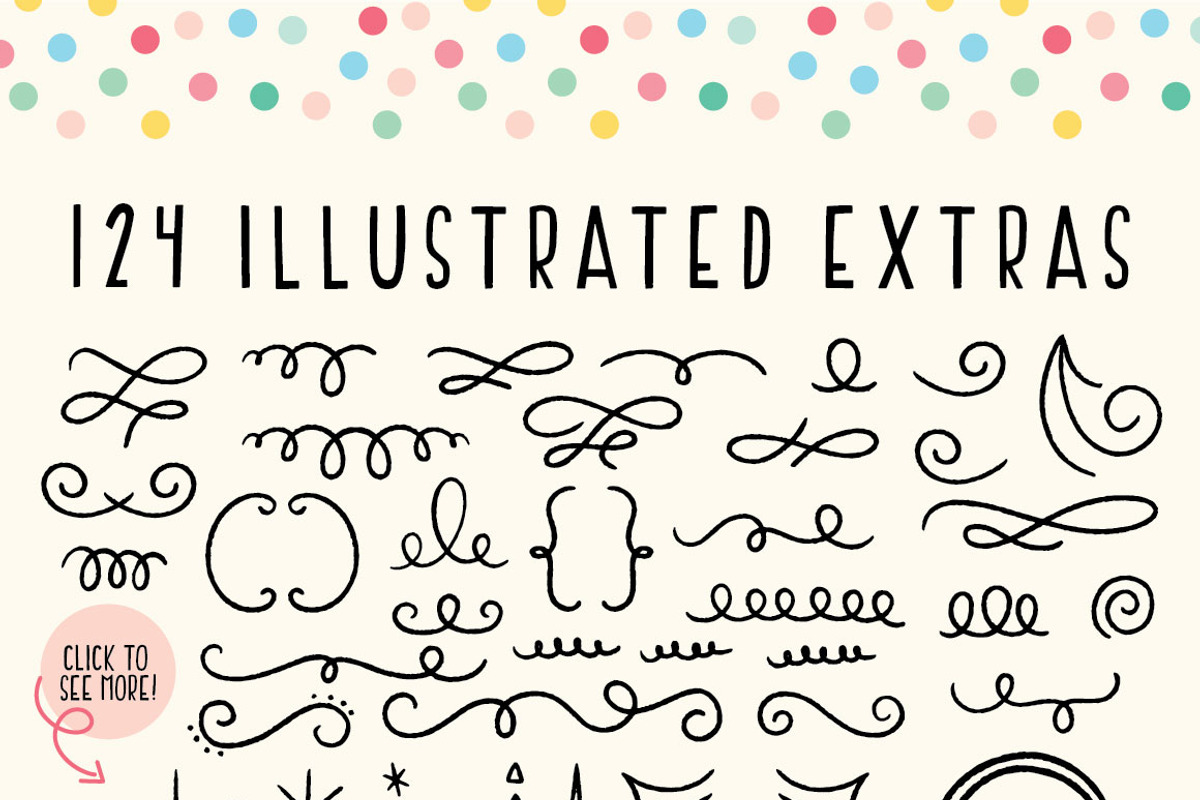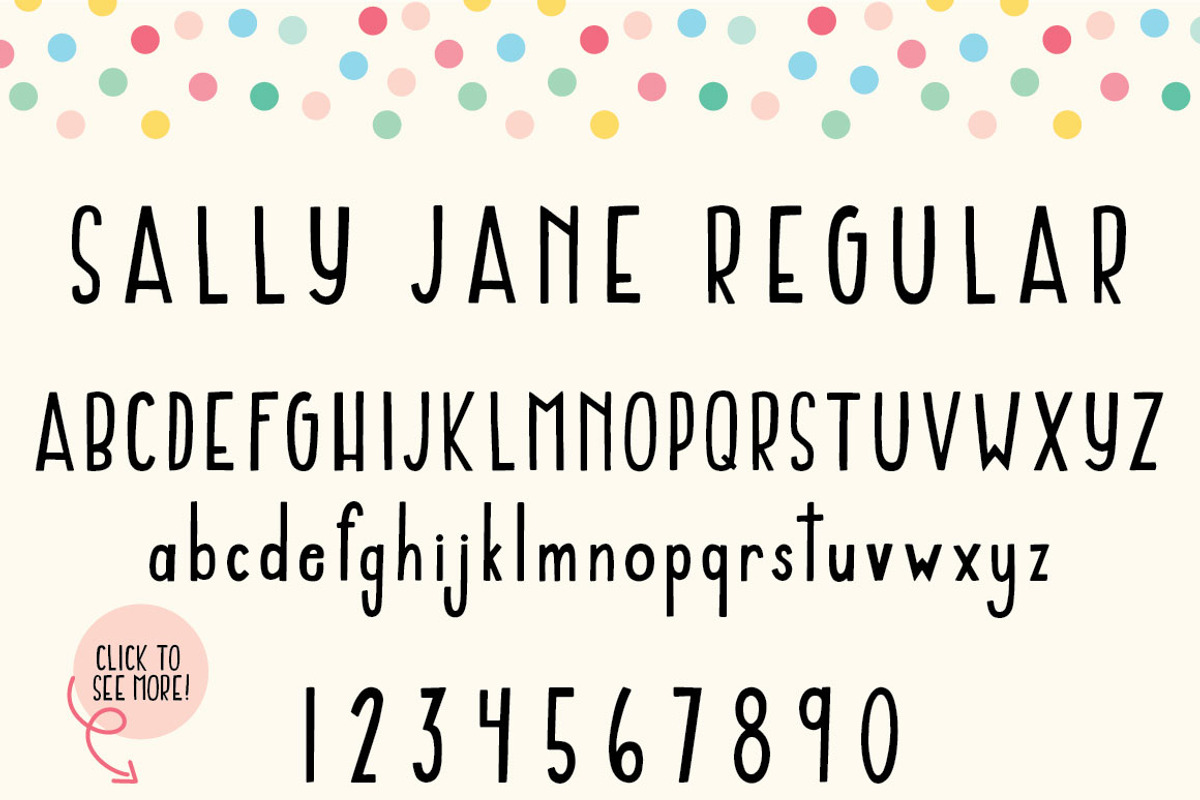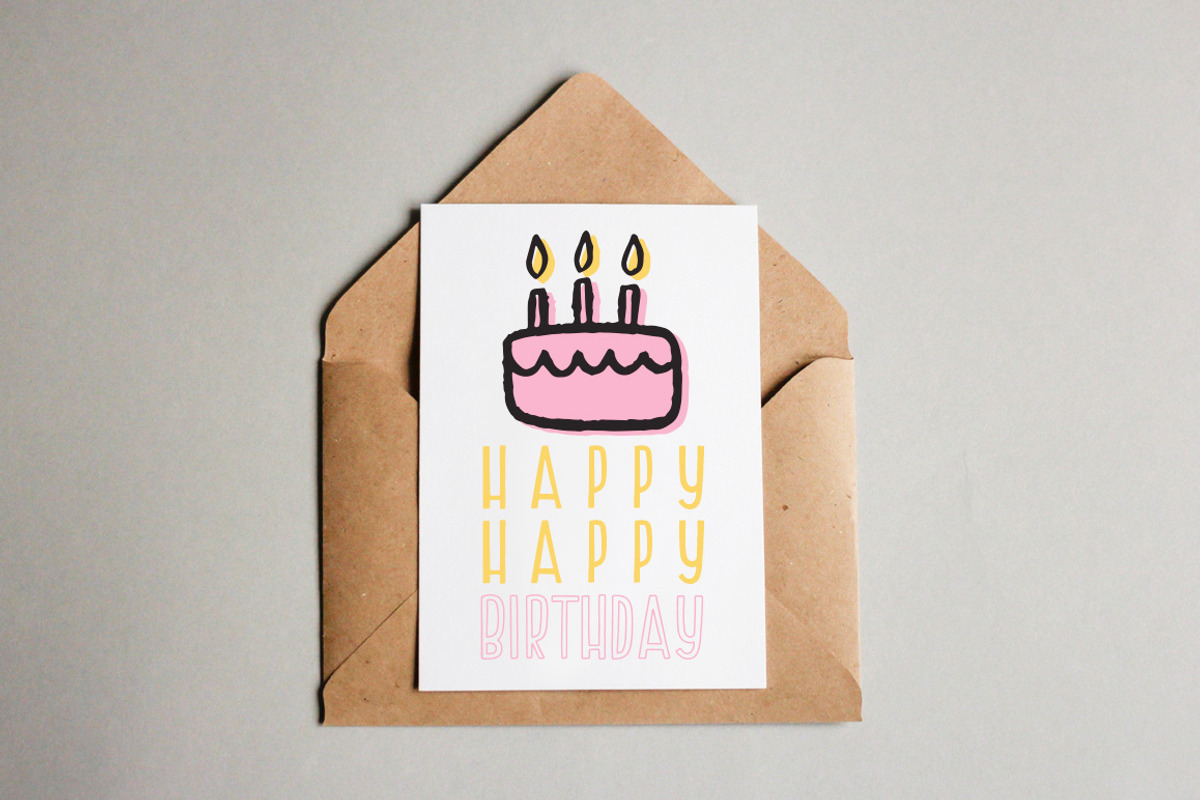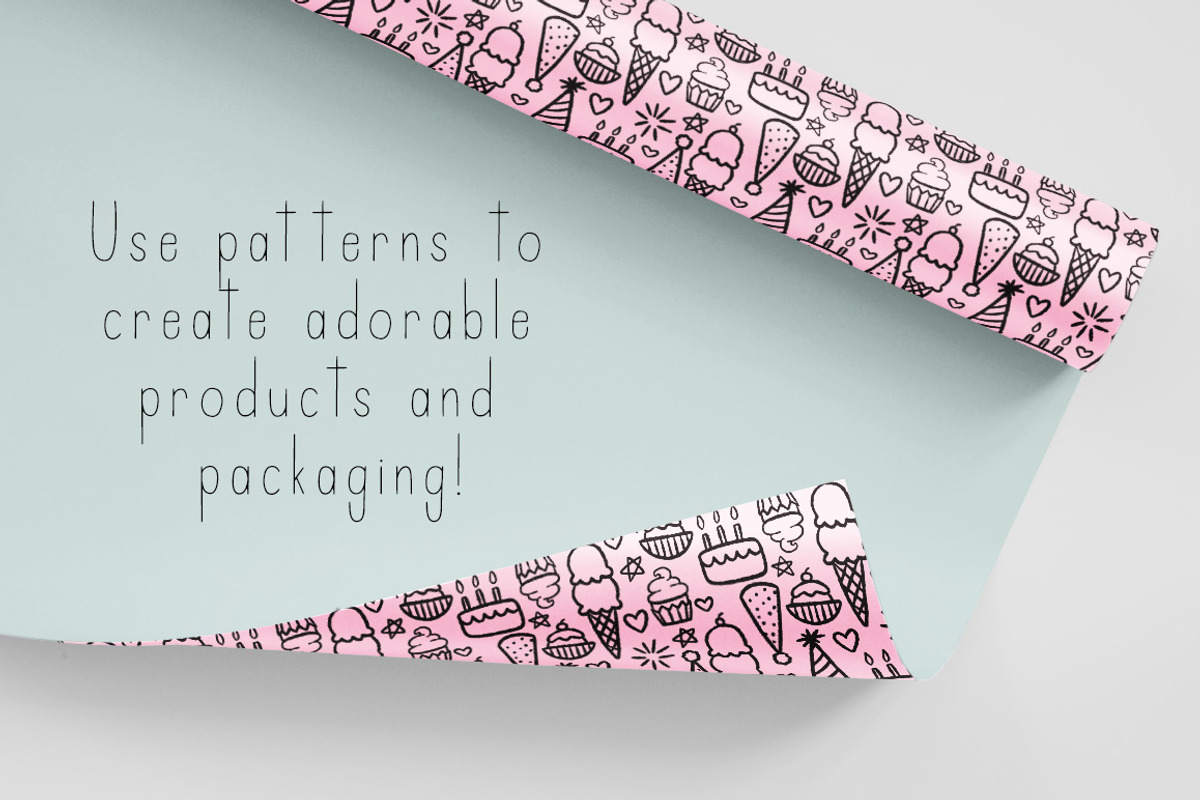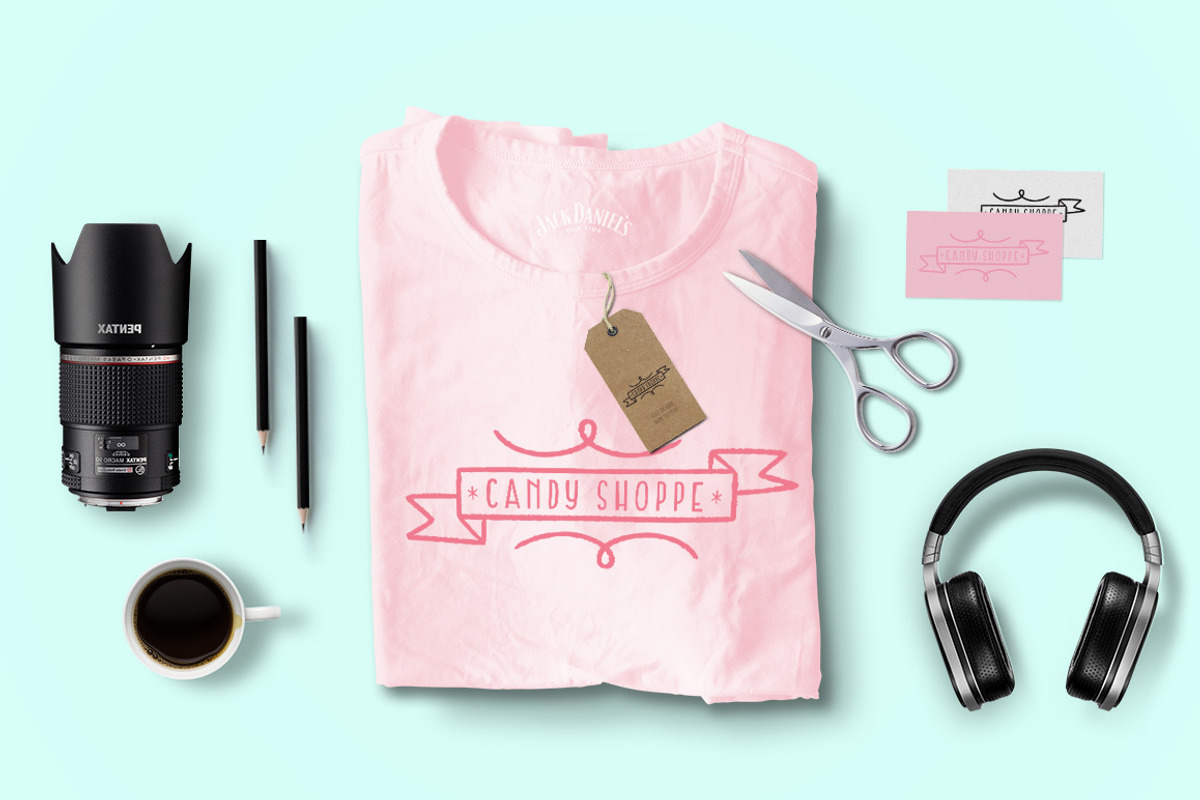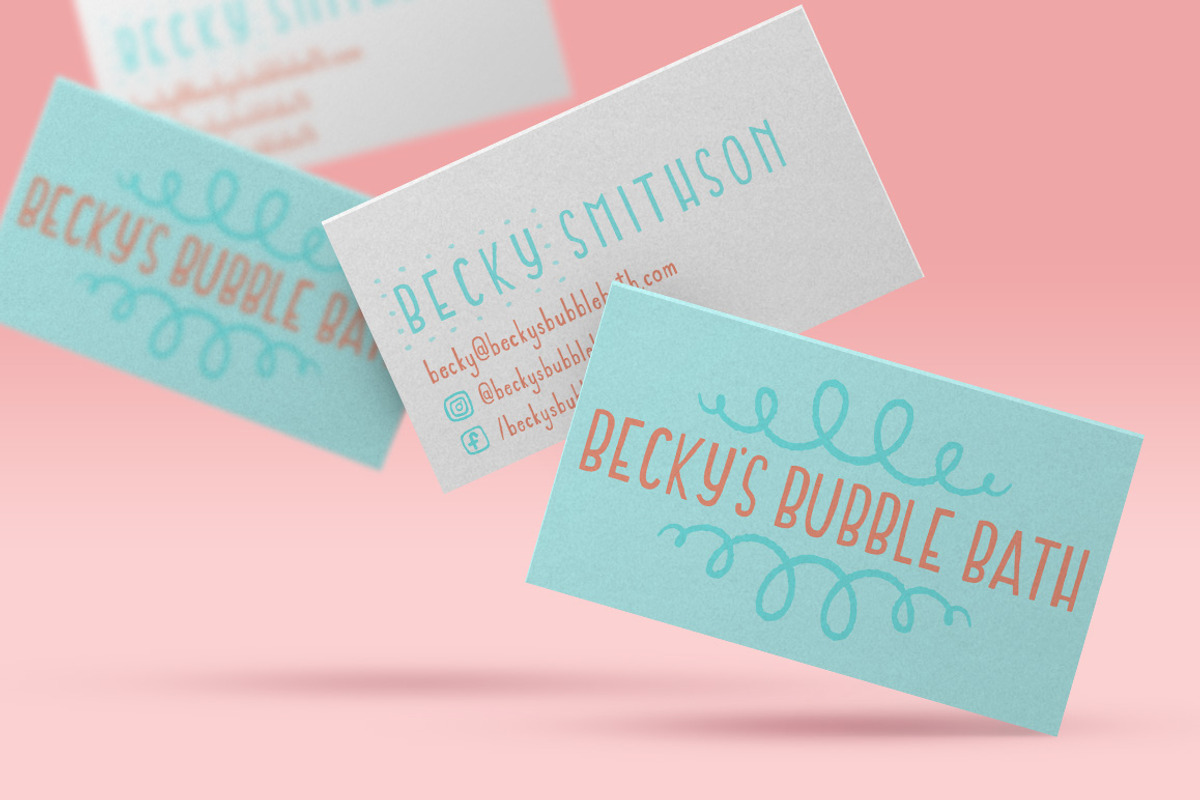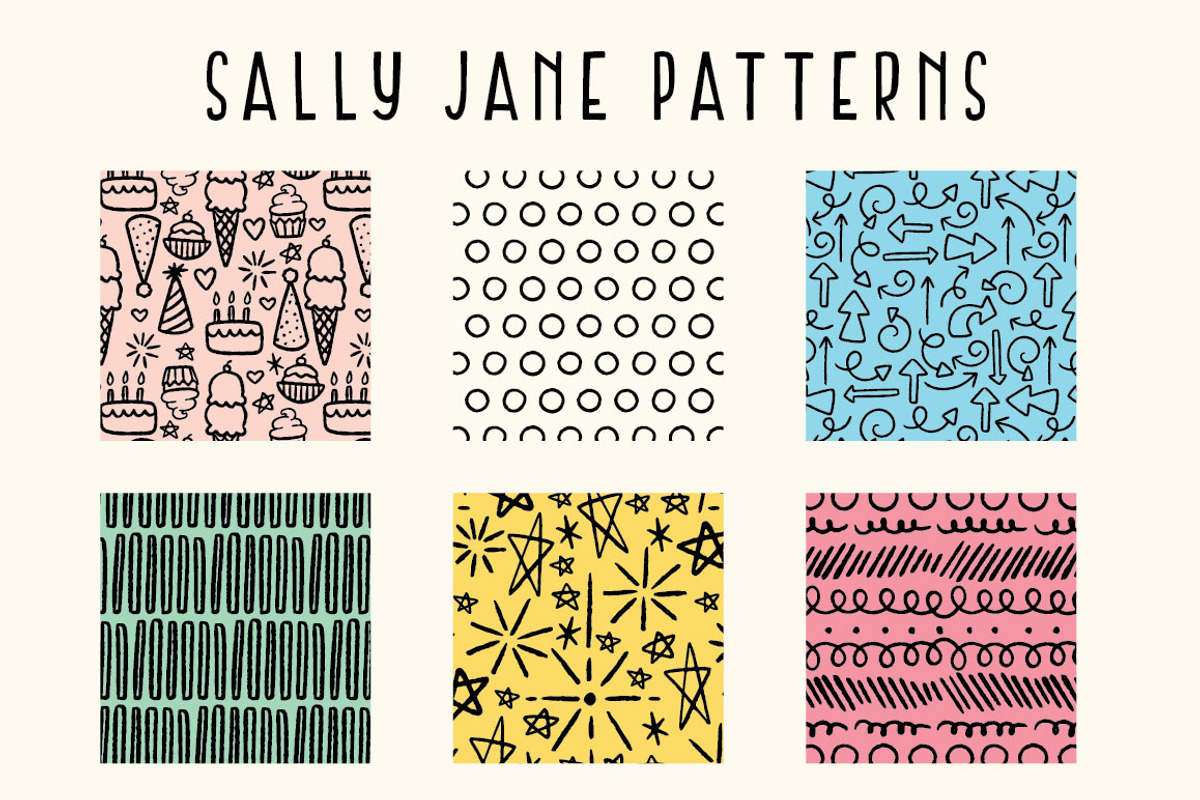
Sally Jane San Serif Font Trio
Sally Jane is a cute and quirky font trio that is perfect for branding, fun invitations, wall art, packaging and more! It also comes packed with 124 hand drawn icons and a set of 6 patterns so you can create adorableness to your hearts content!
Sally Jane comes as a single font family packed full of great features:
Full set of lower and upper case letters
Punctuation and numerals
3 different weights: Regular, Outline, and Monoline
ILLUSTRATIONS AND ICONS!
Along with the font trio, enjoy a selection of 124 hand drawn line illustrations, and 6 illustrator and jpg patterns. They are fun and quirky with great assets for your online business (social media icons) and branding (banners, underlines and frames)! The illustrations come in an illustrator file and .eps file. Use these illustrations to create your own prints, logos, cards, and more!